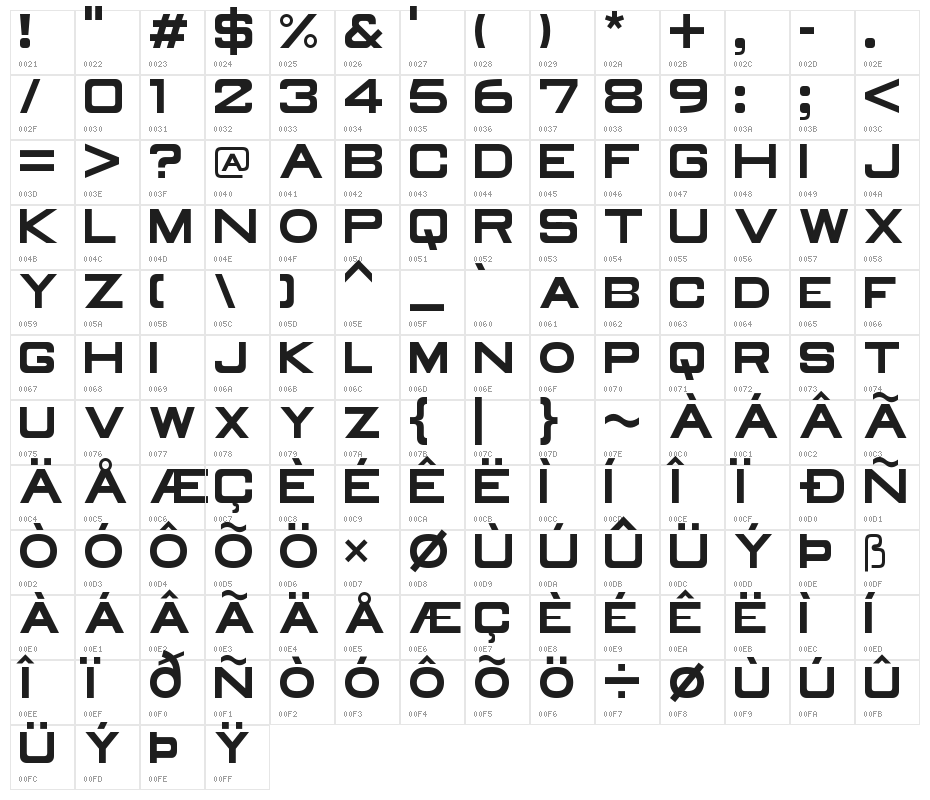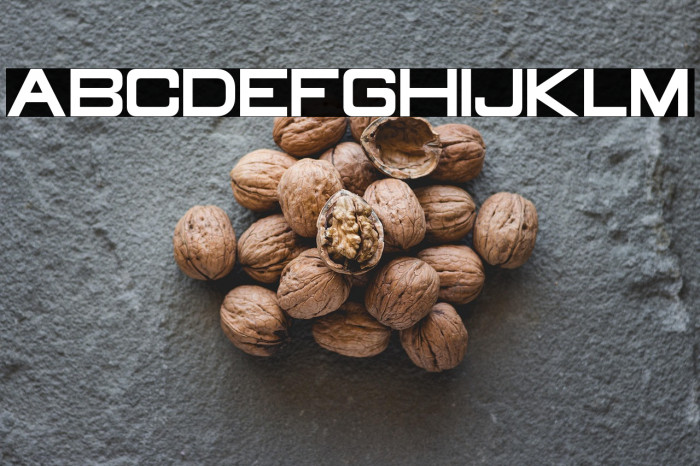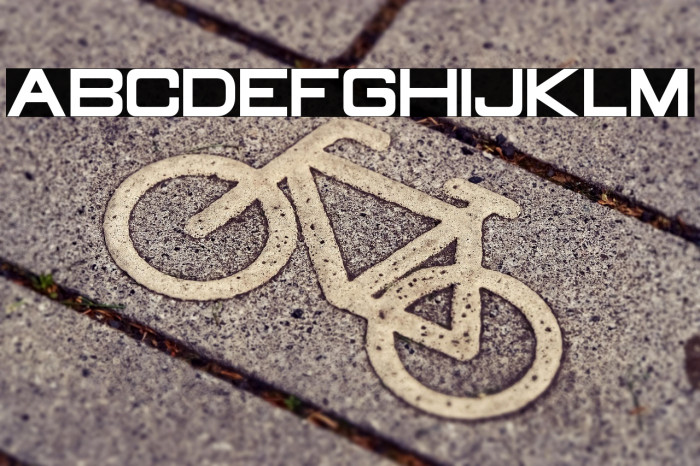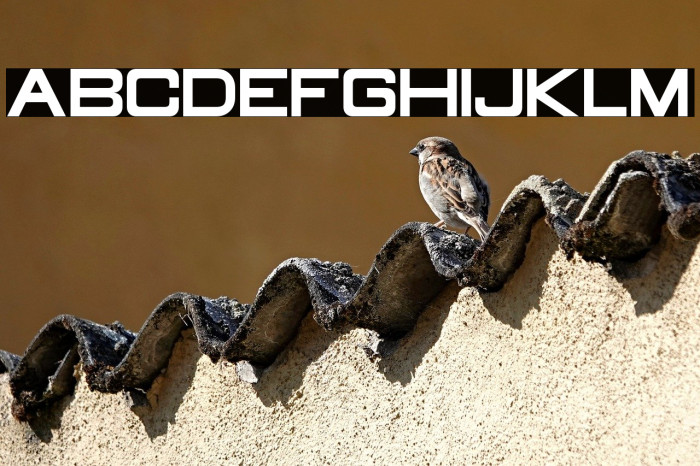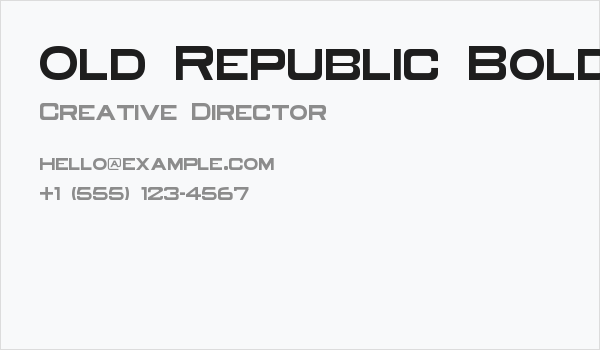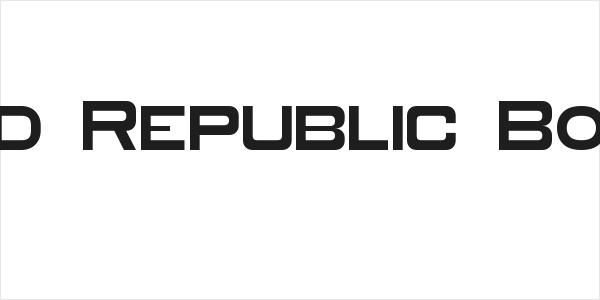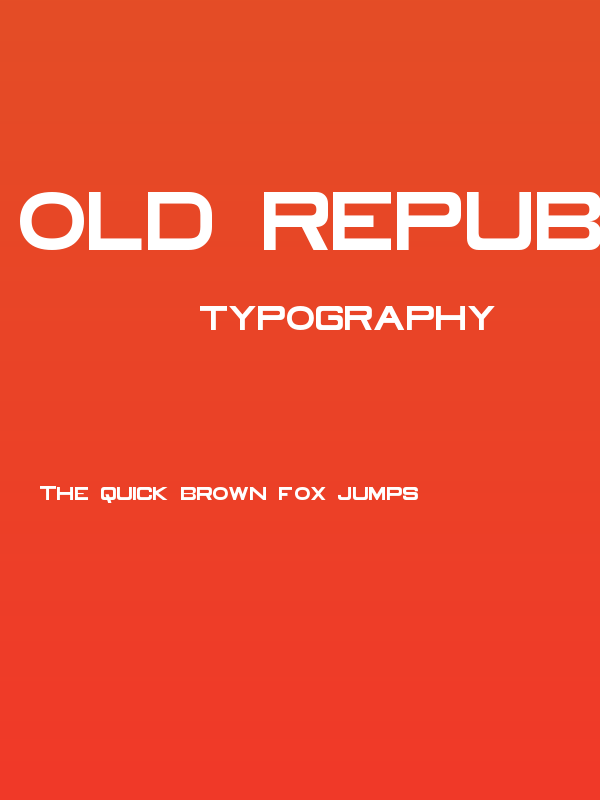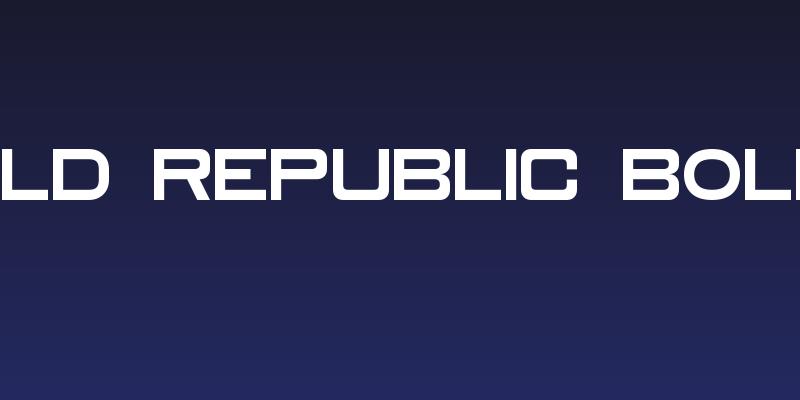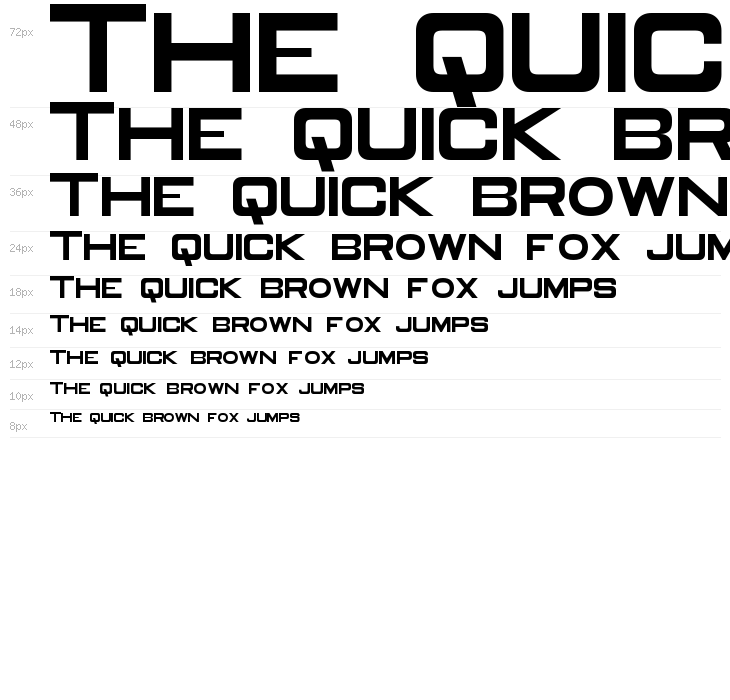
Old Republic Bold Font
Old Republic Bold Description
This font features a bold and geometric design with a futuristic and modern appeal. The characters are constructed with straight lines and sharp angles, giving it a structured and robust appearance. The uppercase letters are uniform in height, while the lowercase letters maintain a consistent style that complements the uppercase. The numerals are clear and distinct, matching the overall boldness of the font. Special characters are designed with the same geometric precision, ensuring a cohesive look across all glyphs. The font's strong presence makes it suitable for impactful designs.